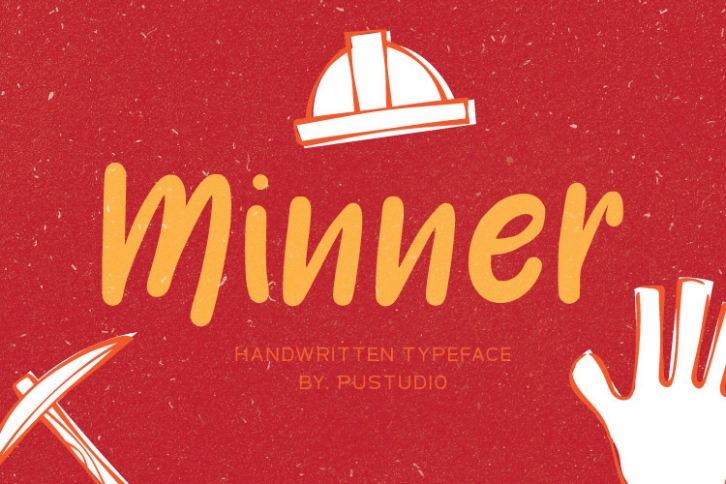
Minner is a clean, cute feel and adaptable handwritten font that can be used for various designs! Its authentic look and feel will add a personal and realistic feel to your designs.